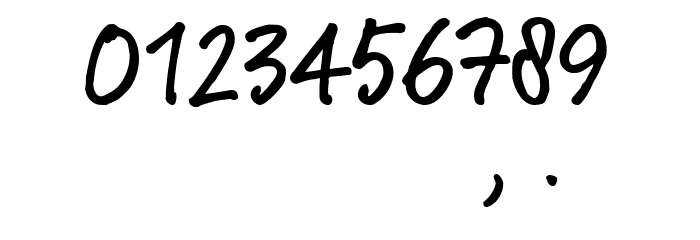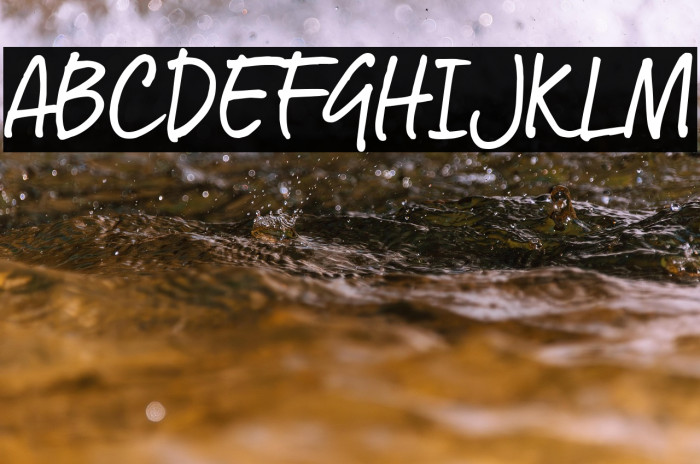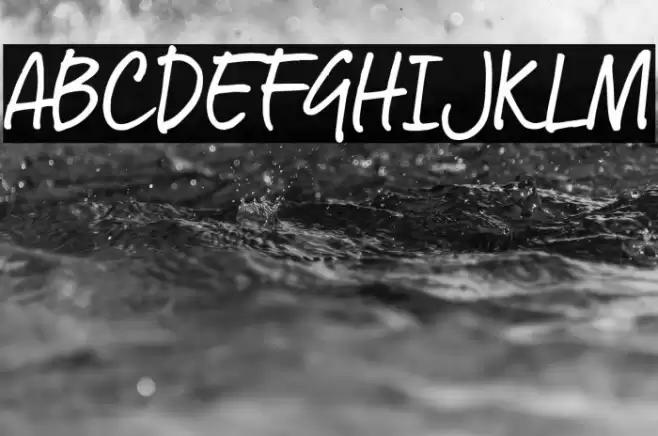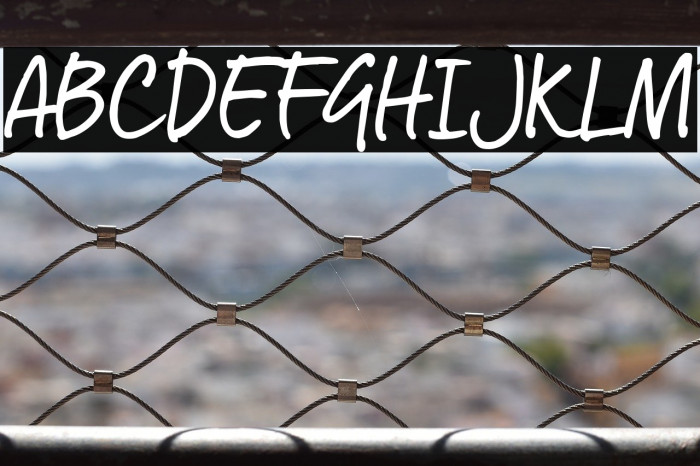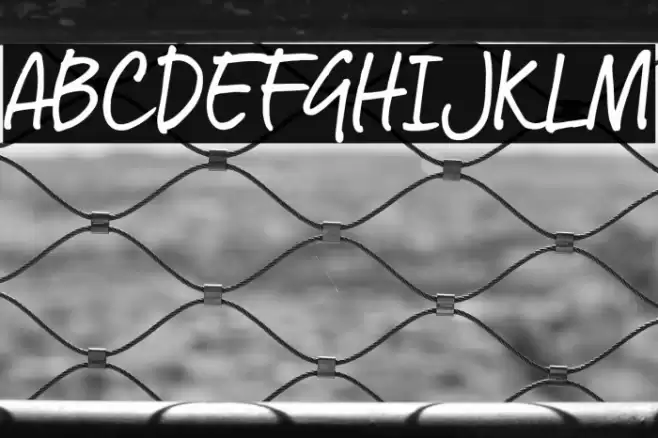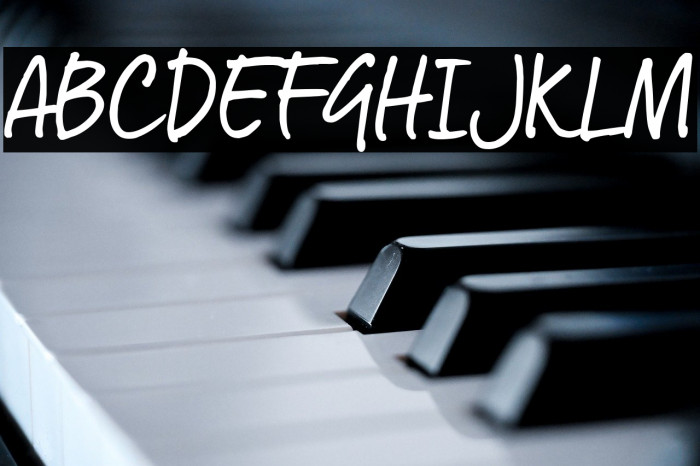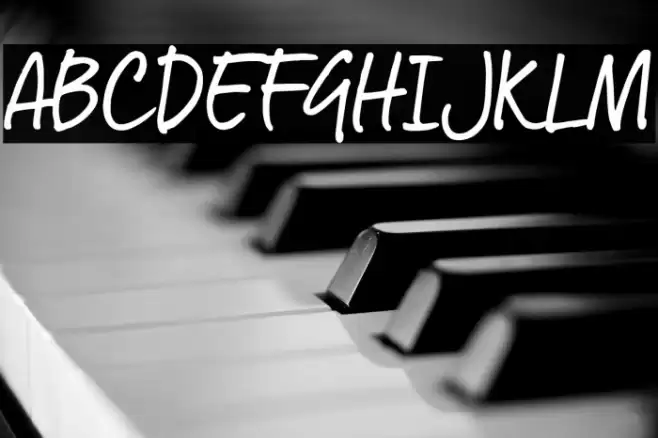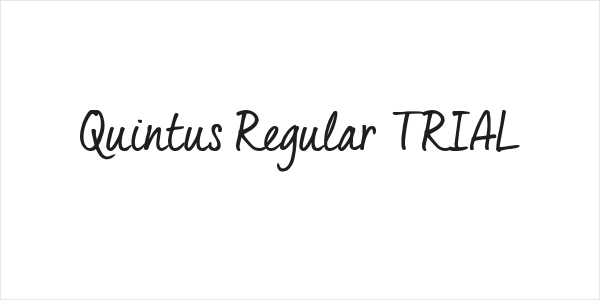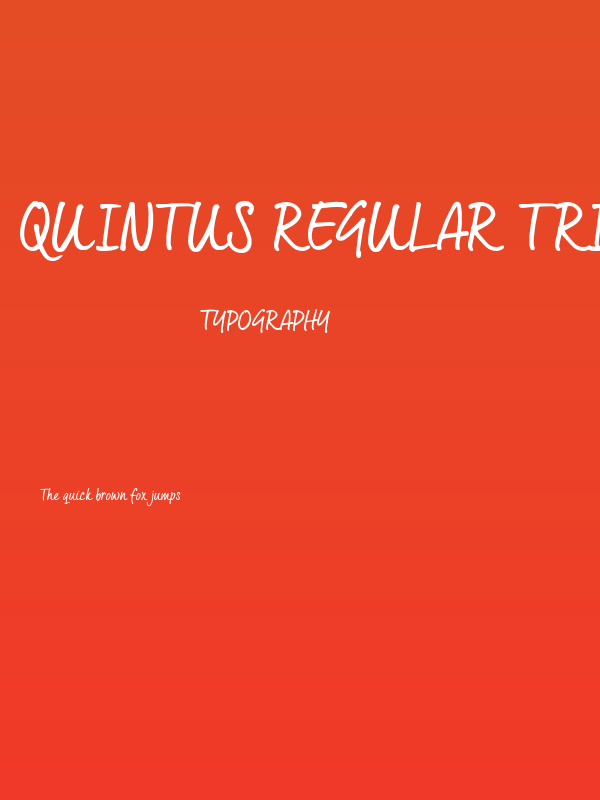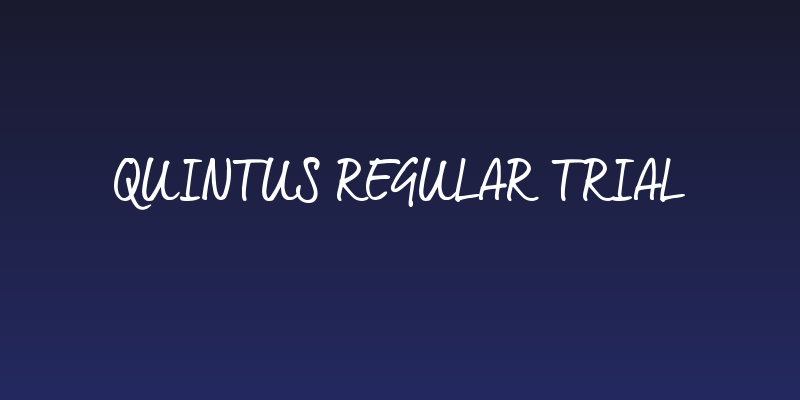
Quintus Regular_TRIAL Font
Quintus Regular_TRIAL Description
This font exhibits a handwritten style with a casual and flowing appearance. The characters are slightly slanted, giving it a dynamic and lively feel. The strokes are consistent in thickness, providing a uniform look across all characters. The uppercase letters are bold and prominent, while the lowercase letters maintain a smooth and connected form, reminiscent of cursive writing. Numbers are clear and easily distinguishable, matching the overall aesthetic. The special characters are well-integrated, maintaining the font's cohesive style.